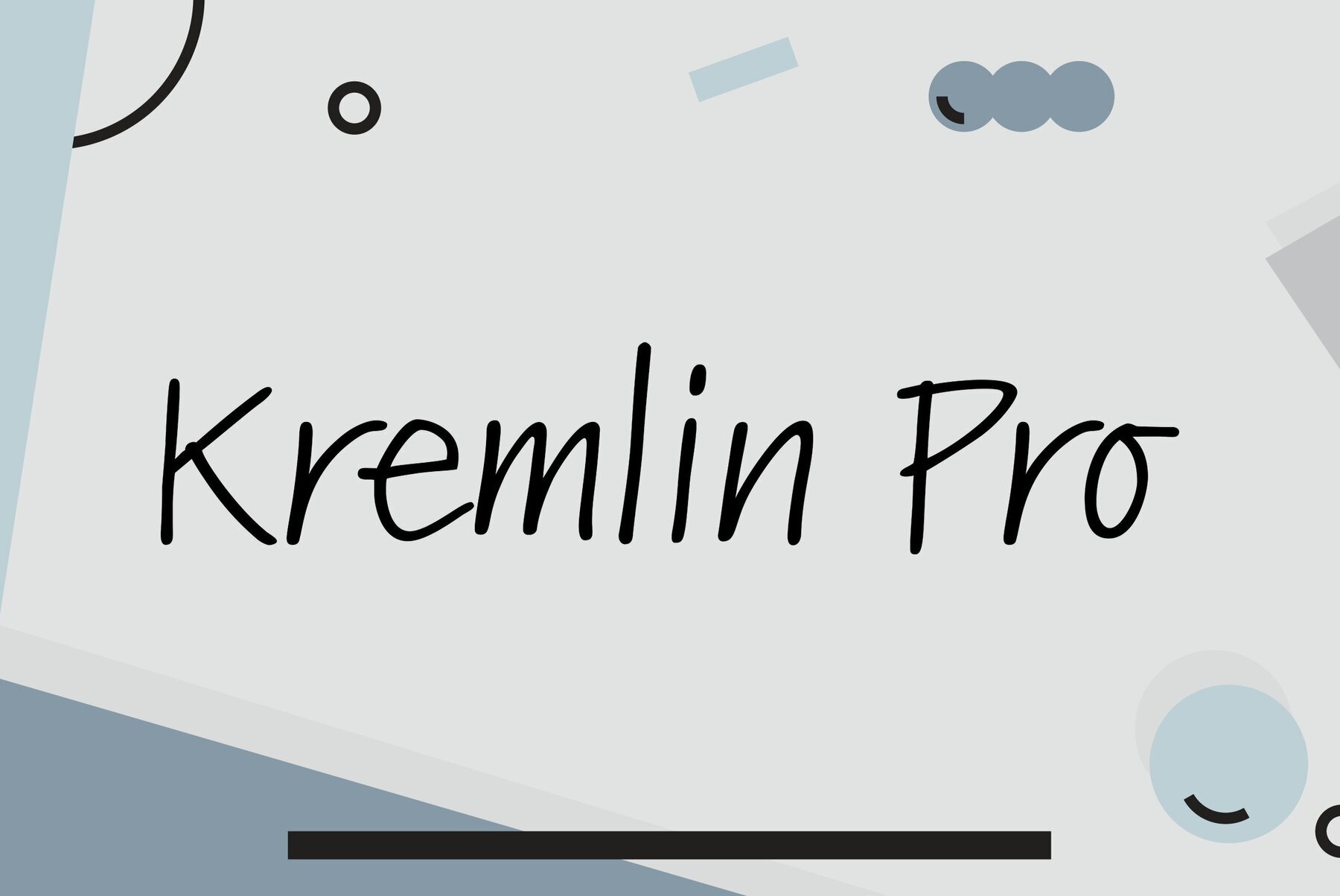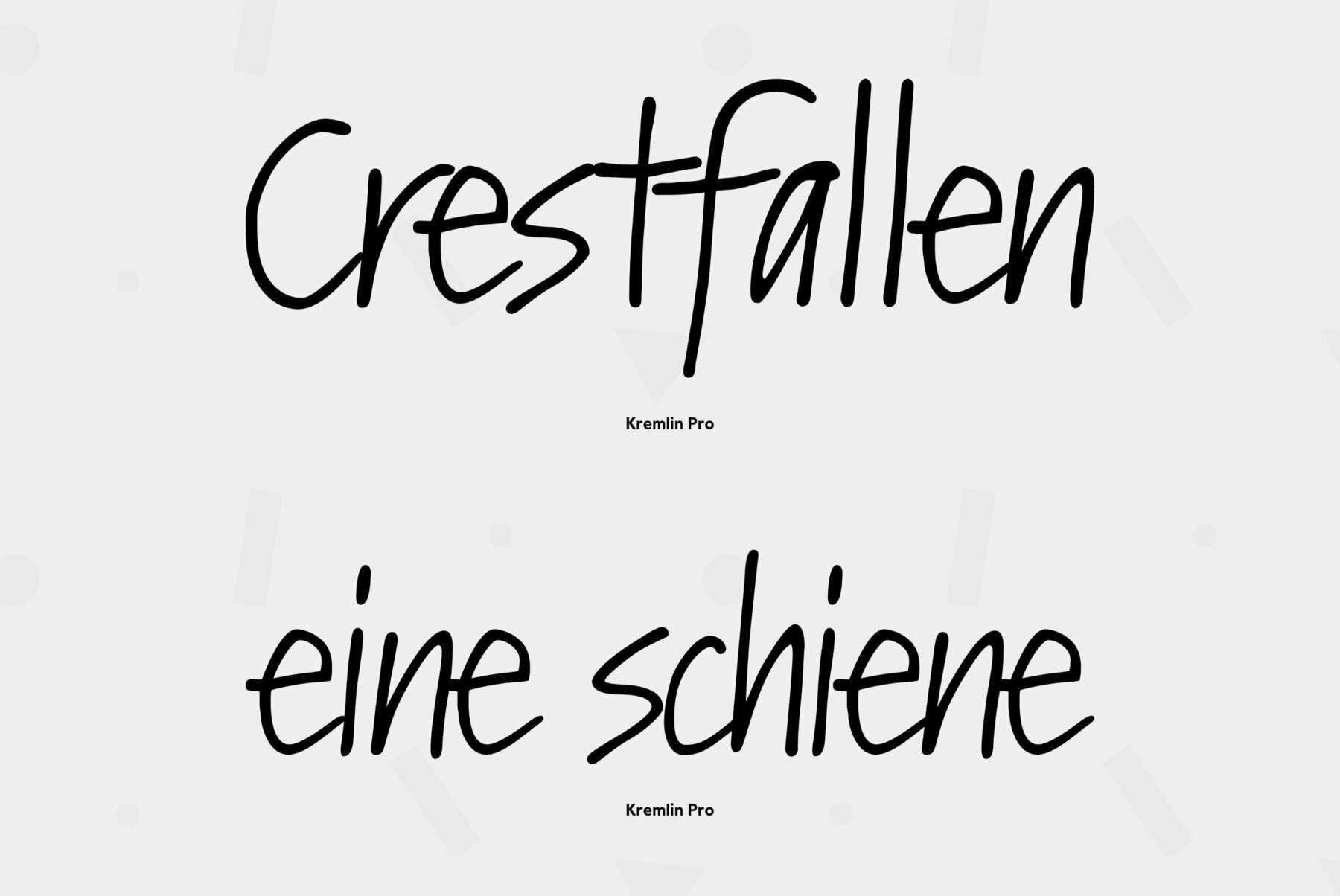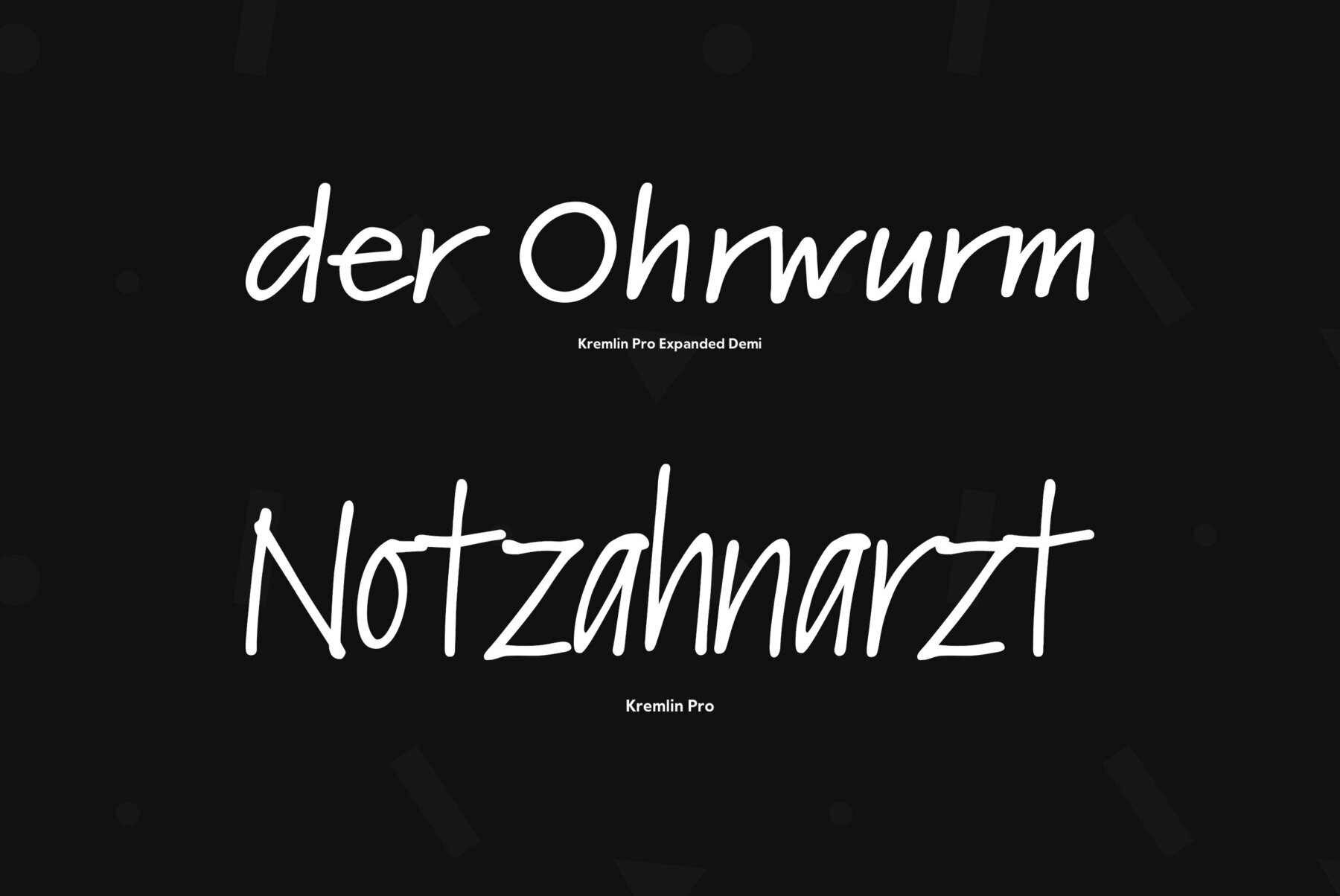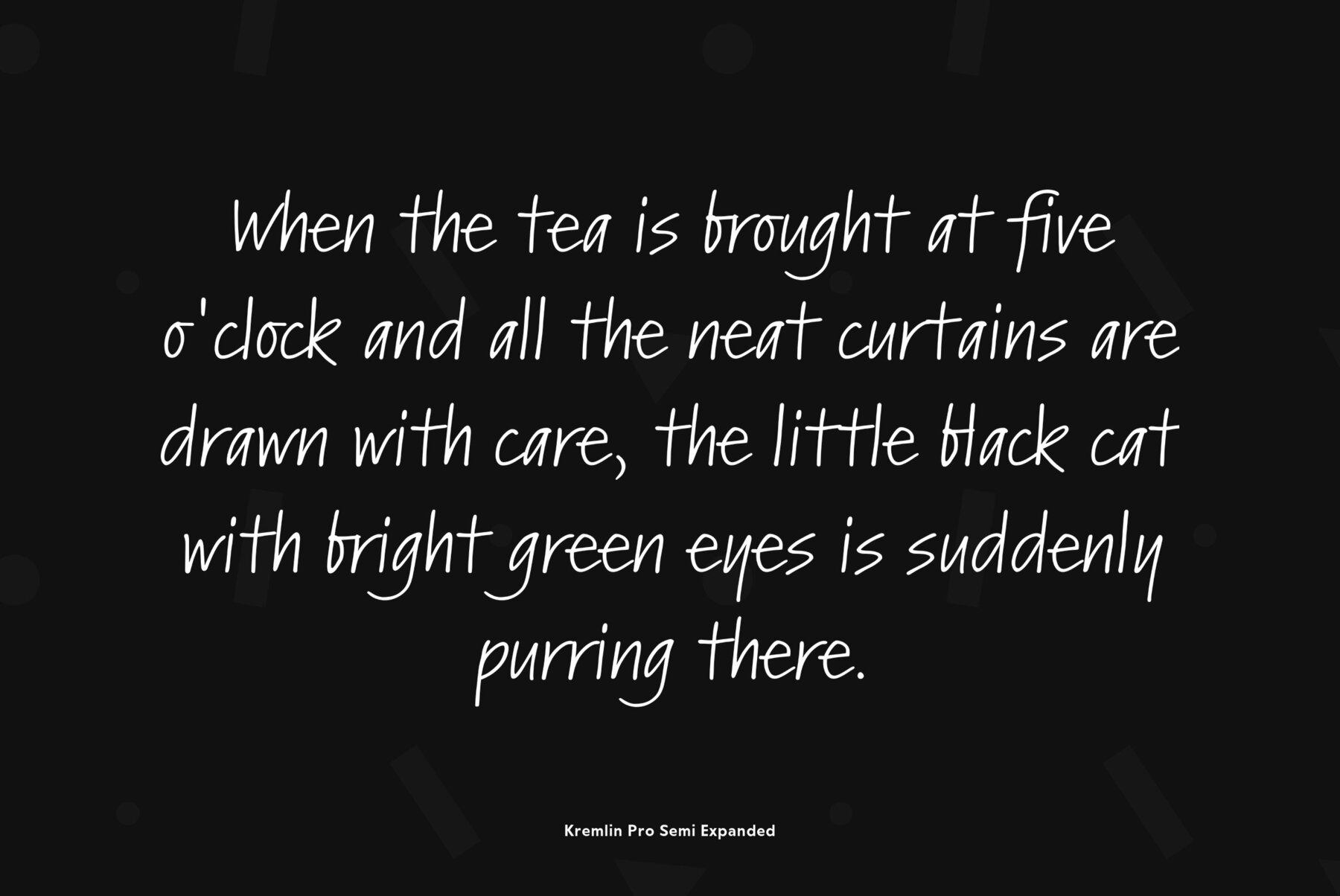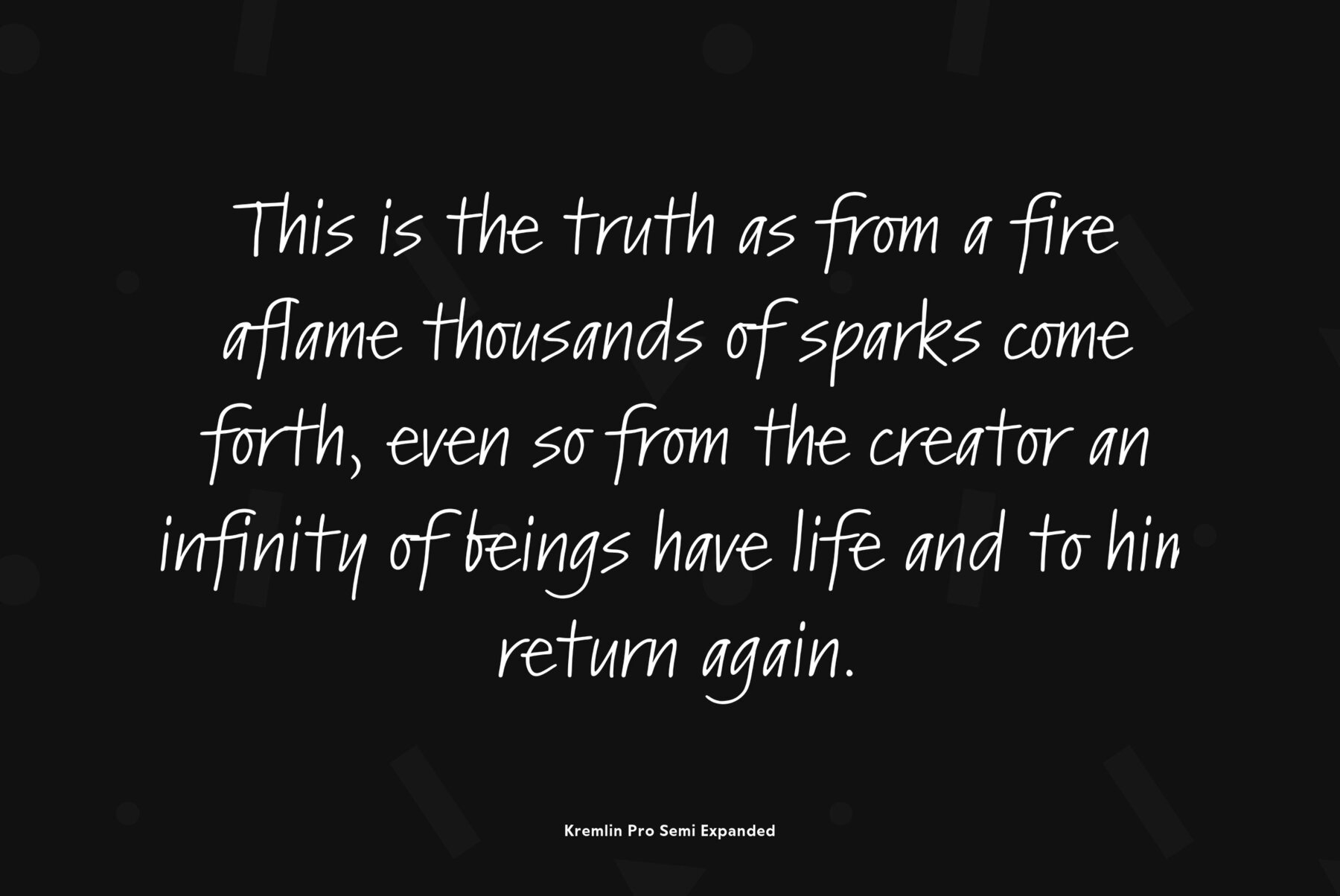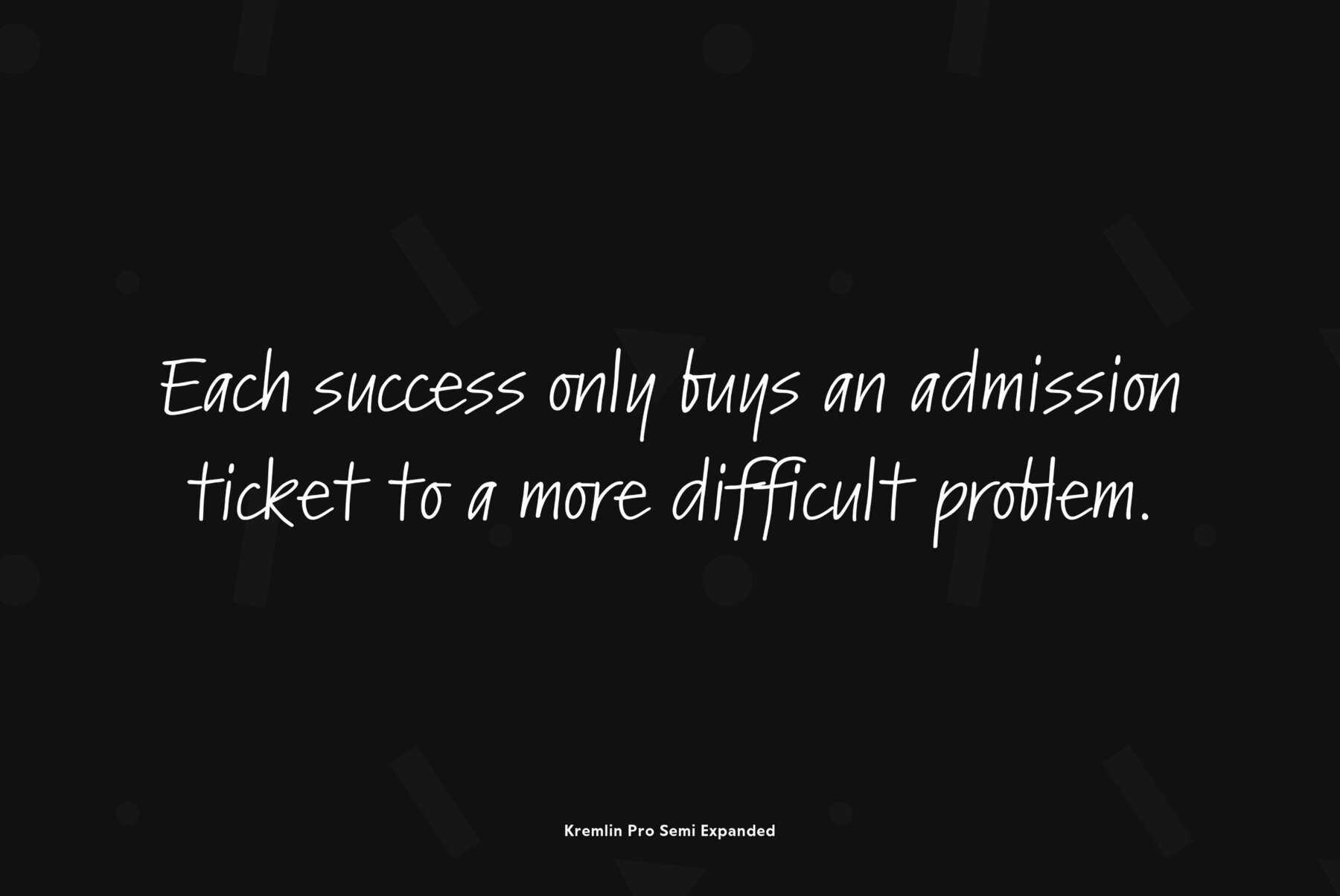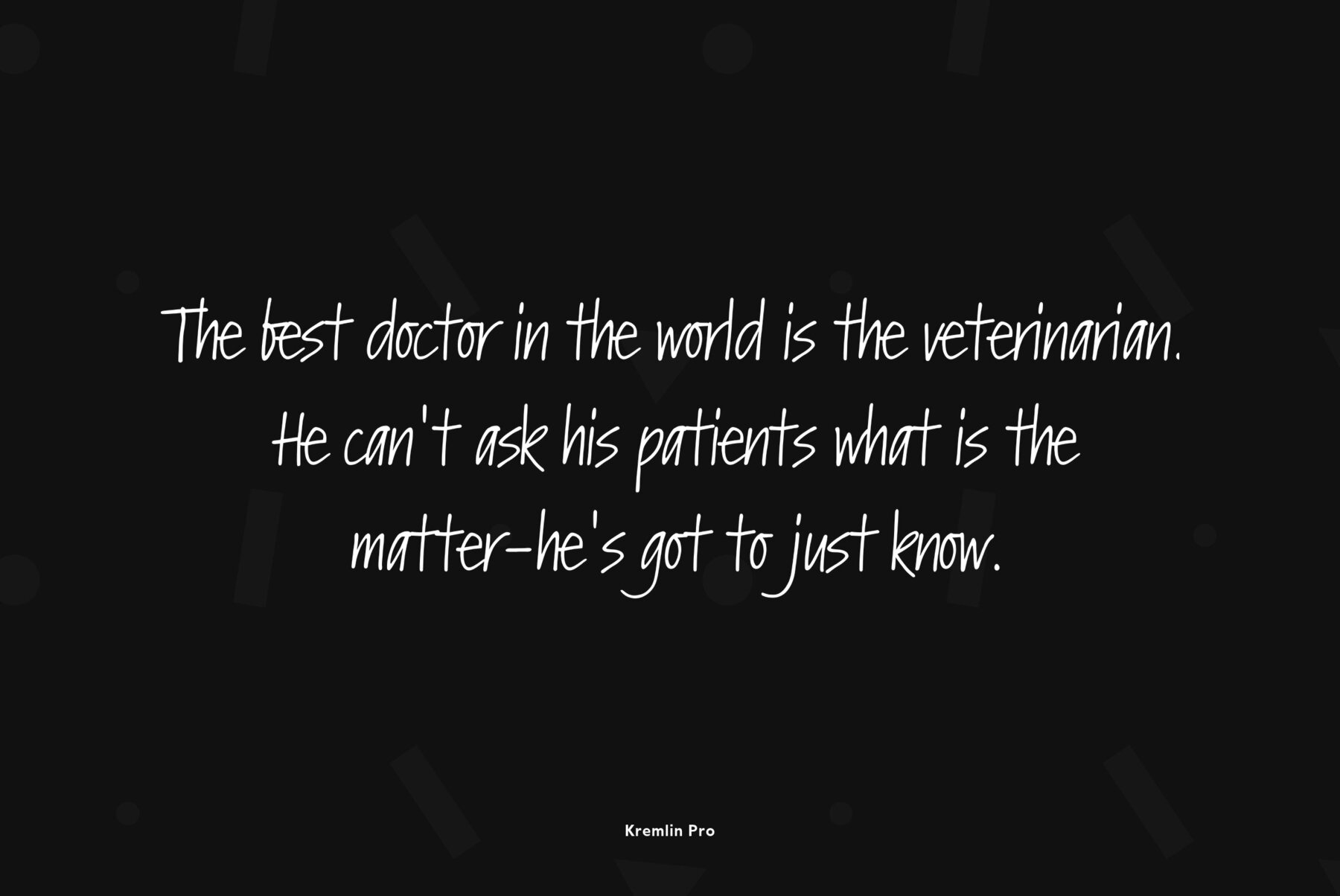
Kremlin Pro
The first version of Kremlin was designed at ParaType (ParaGraph) in 1995 by Tagir Safayev. Based on an informal handwriting. Kremlin is a Russian word for a fortress or a citadel. The reason why the author selected this word for the font name is not quite clear even for him. Probably the appearance of the text line set in this font resembled a tight fence. Later the font was expanded in character set and got two style variations with extended proportions. The suffix 'Pro' in the name was added to distinguish the new version from the previous one. The derivative work was done by Dmitry Kirsanov and Gennady Fridman in 2010. The font is recommended for advertising and display typography.